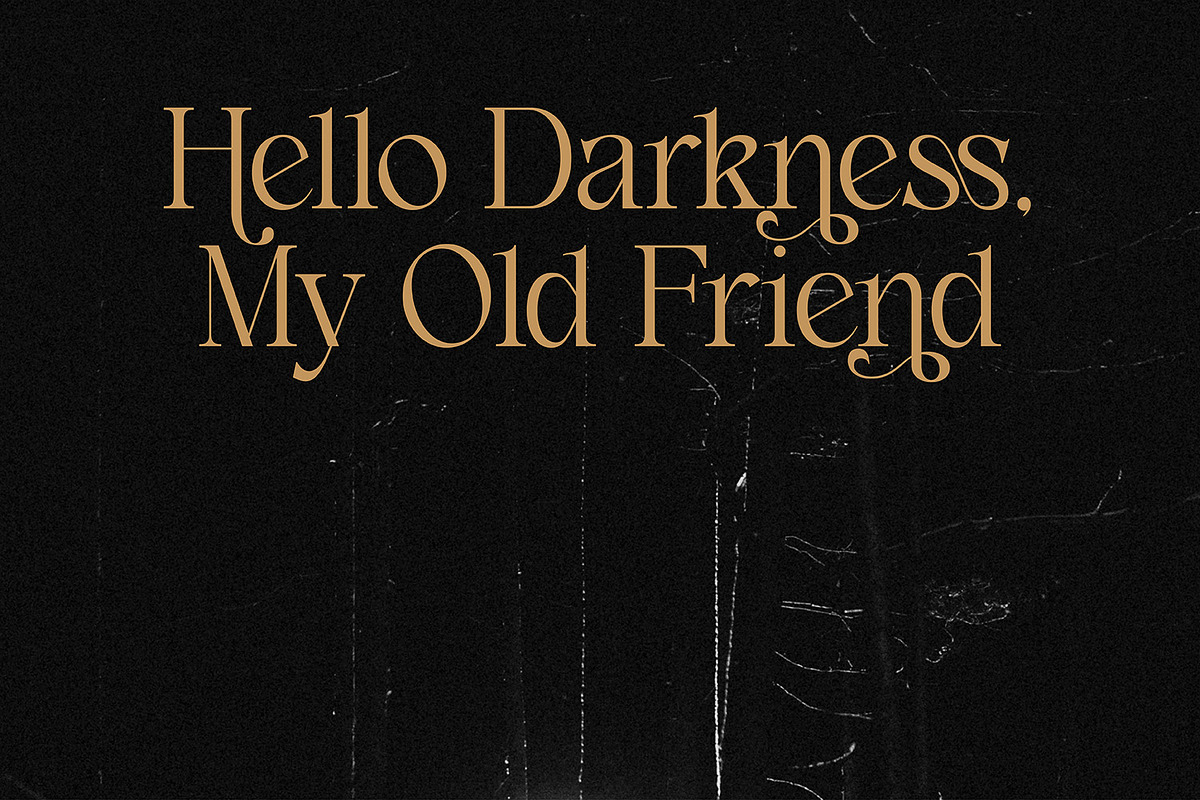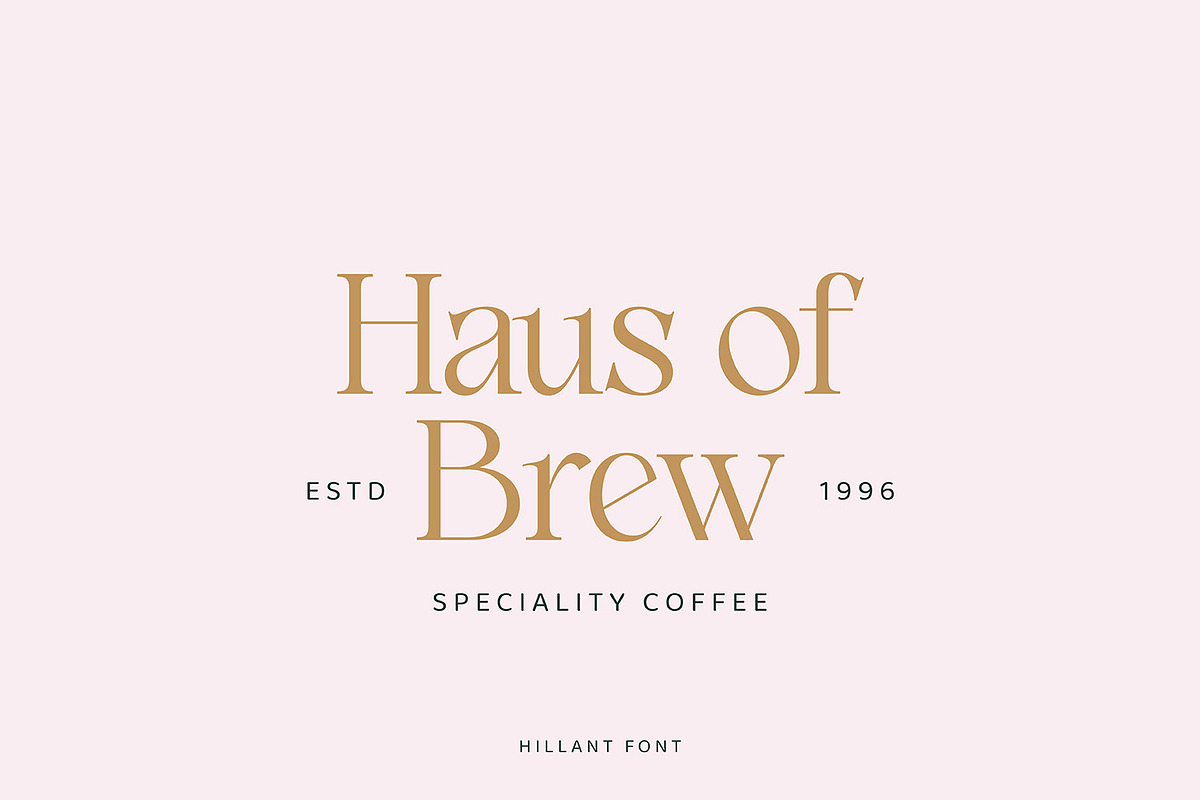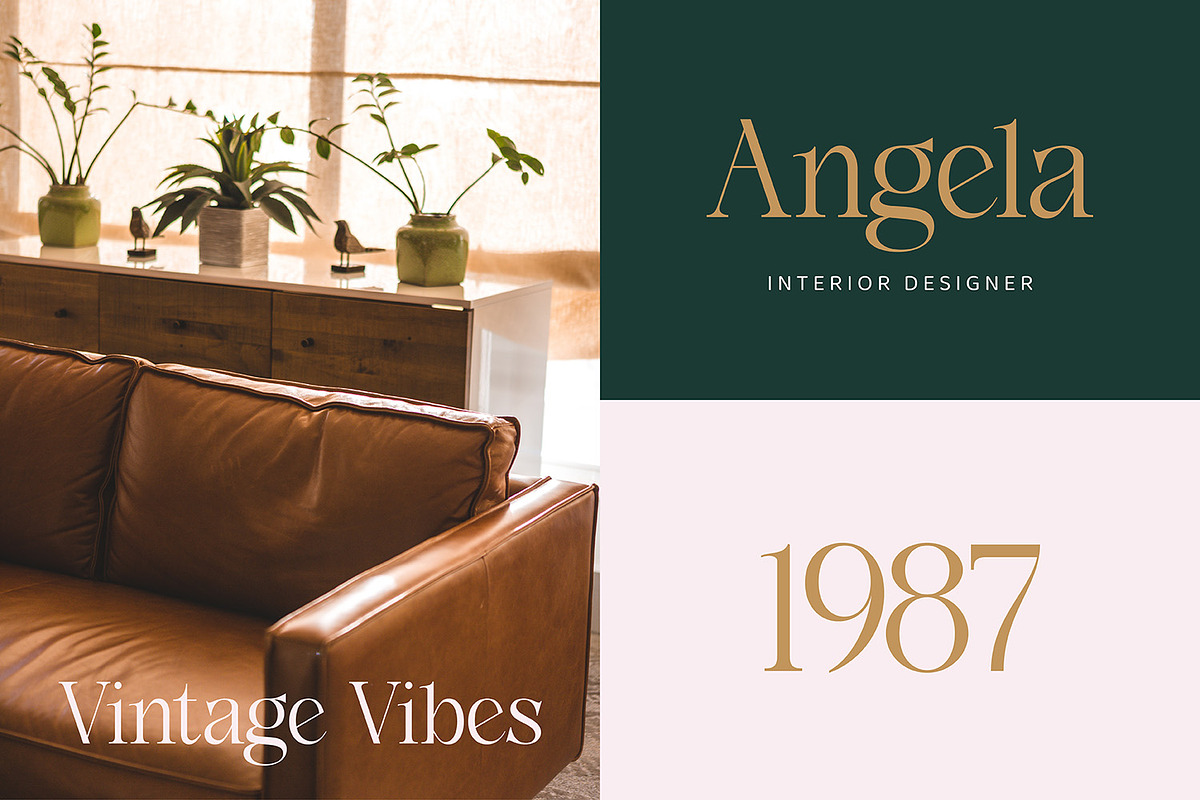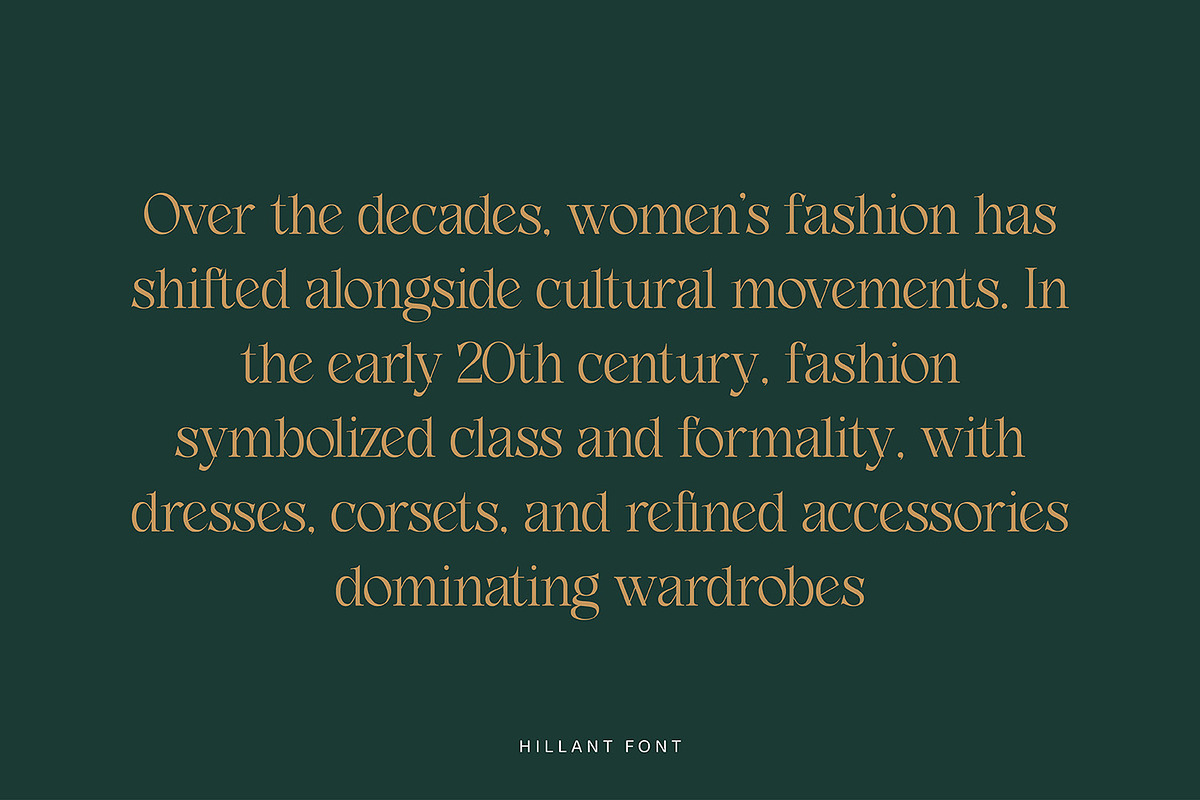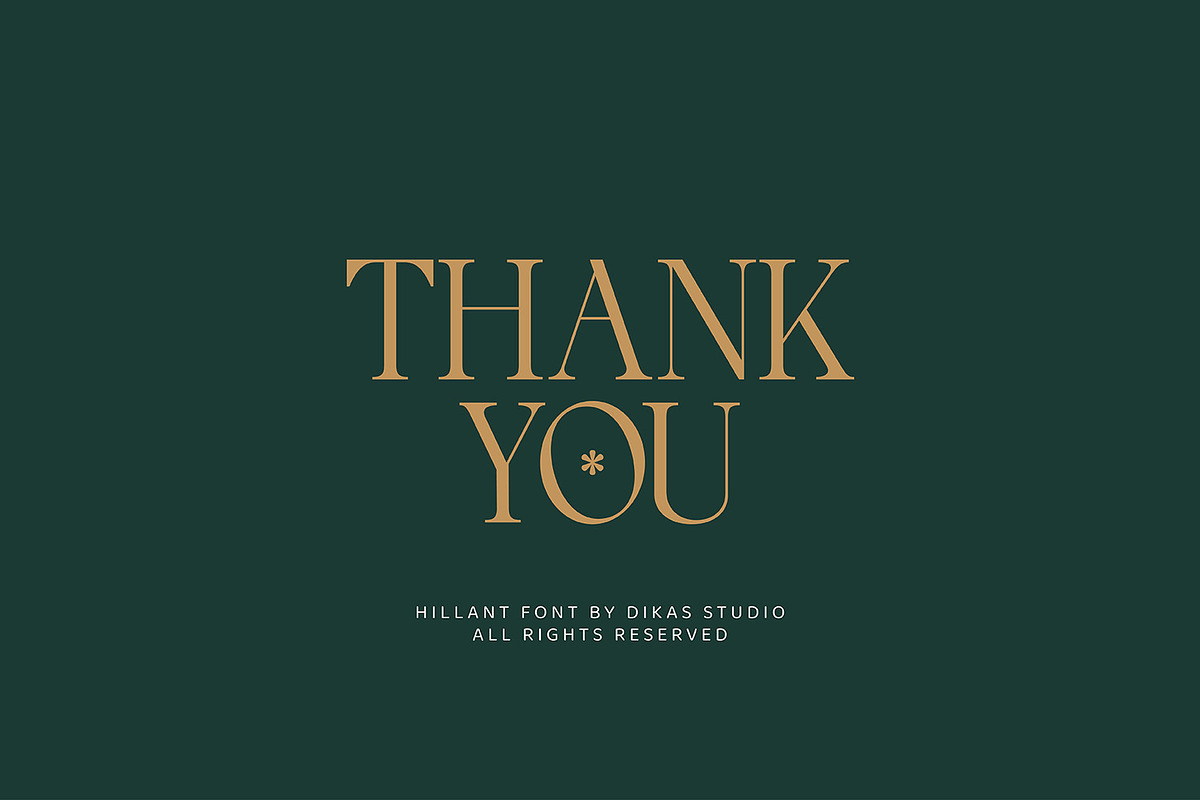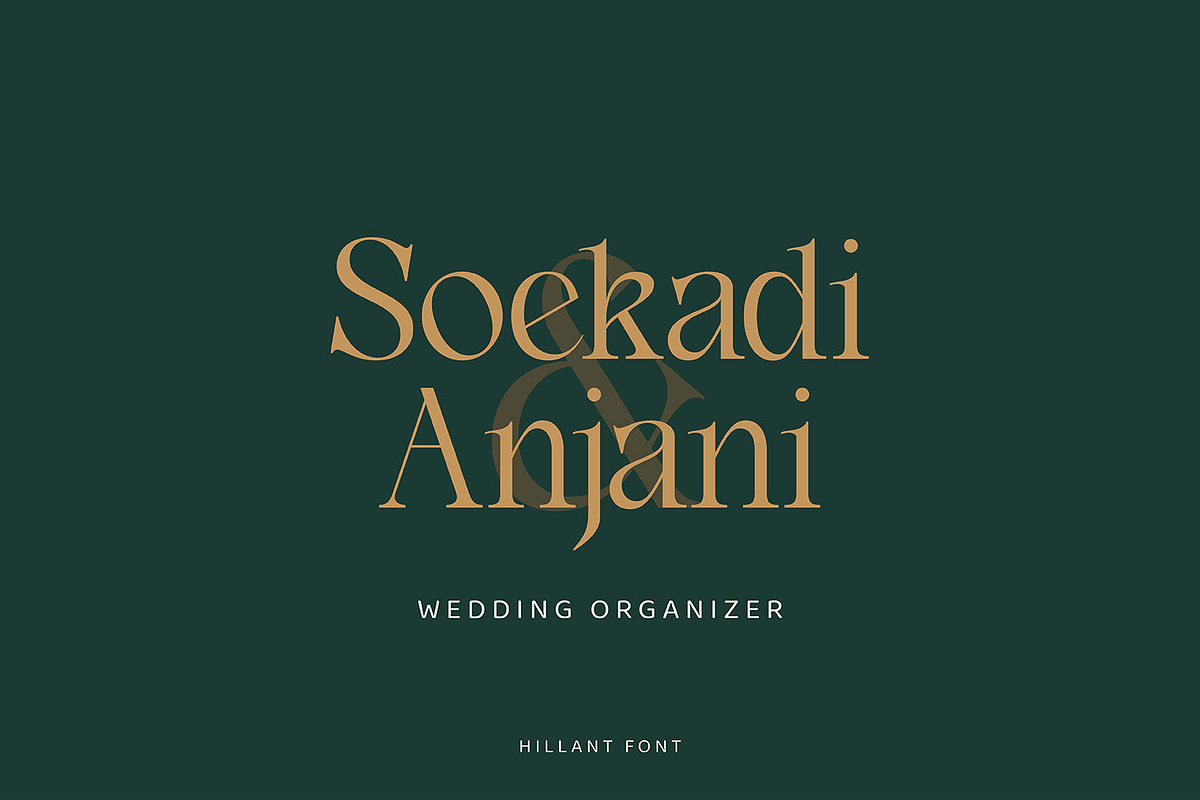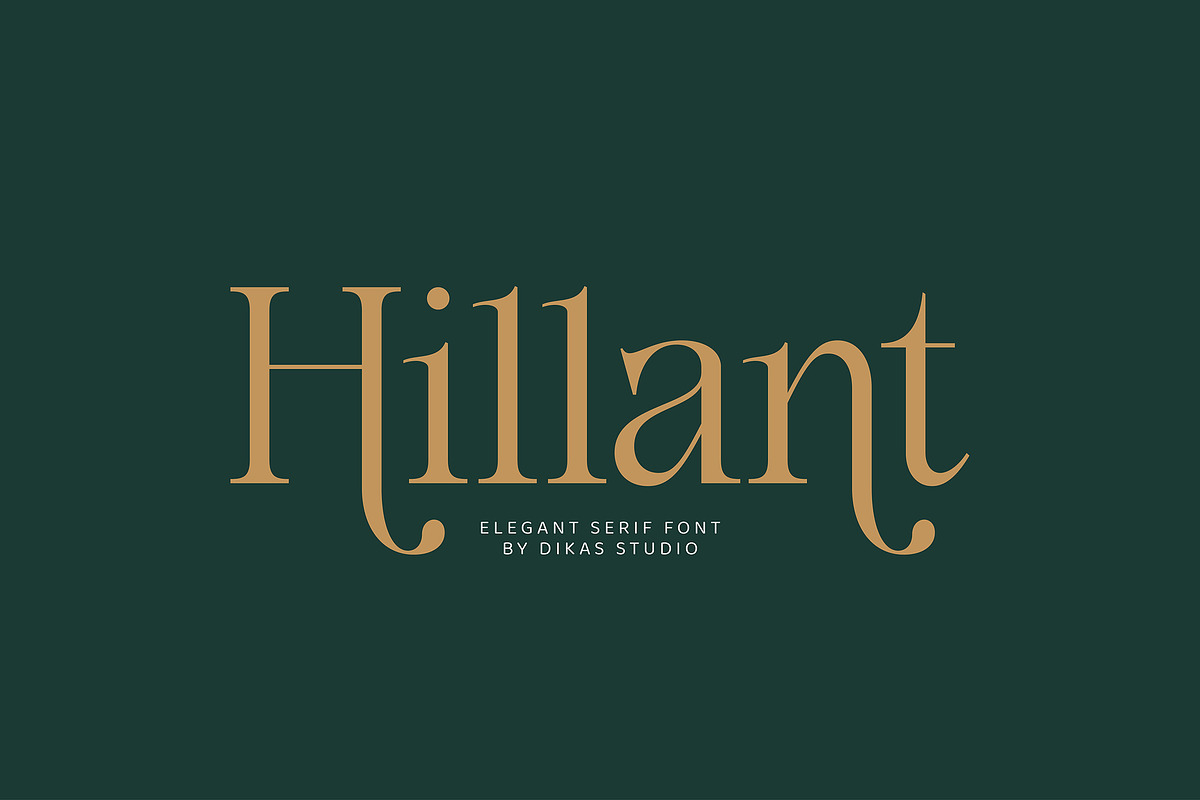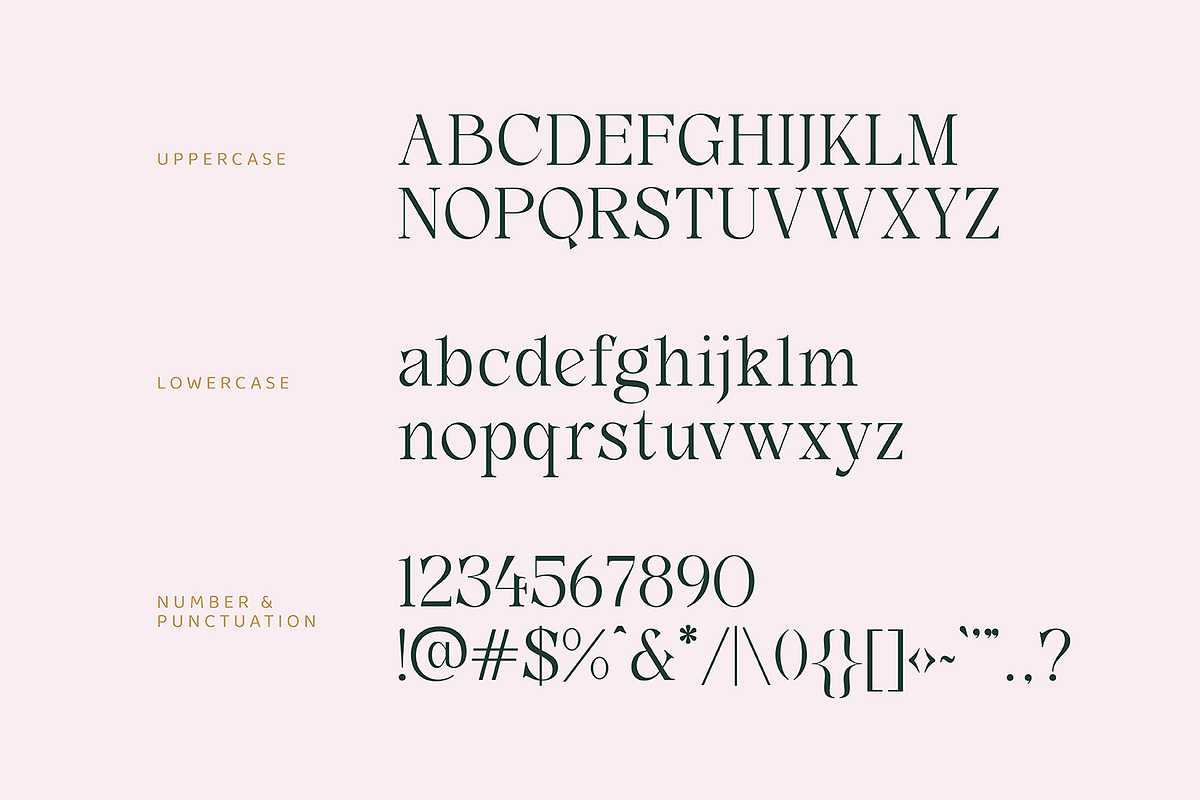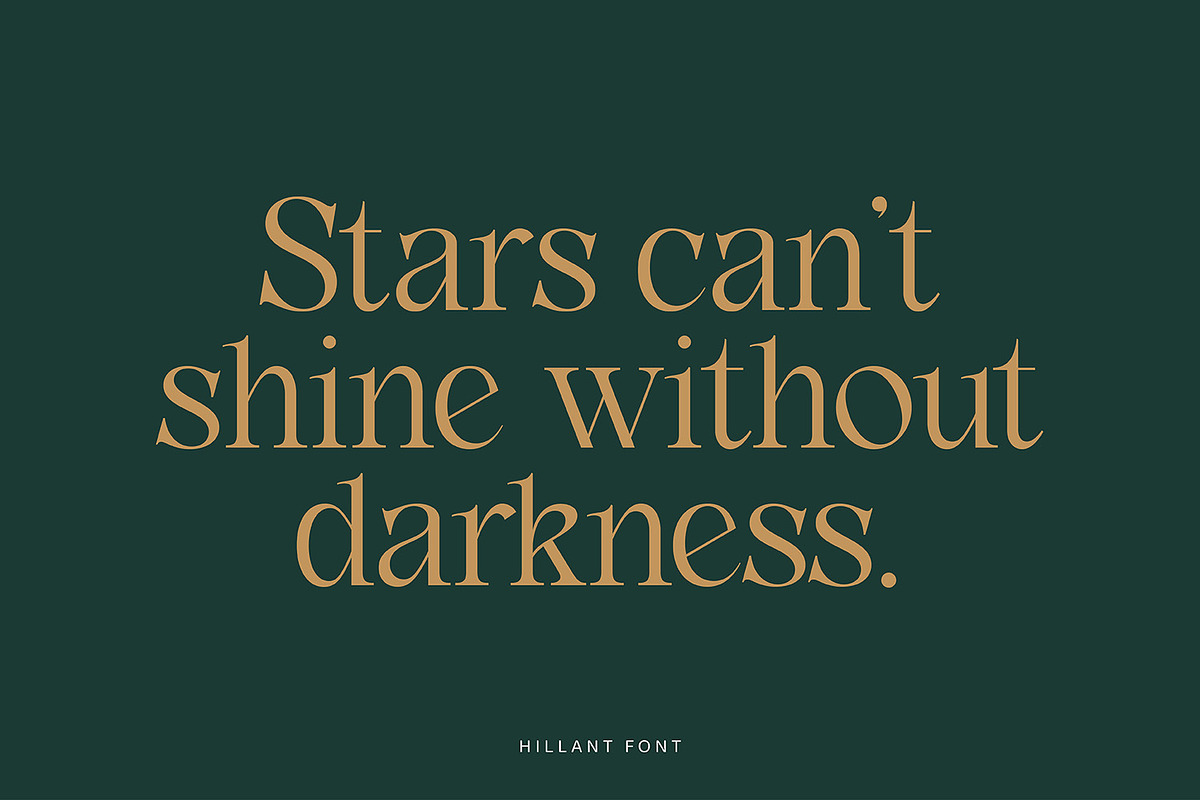
Hillant - Elegant Condensed Serif
Hillant is a condensed serif typeface with sharp serifs that combines elegance, vintage charm, and a slightly dramatic feel. Its condensed shape keeps it highly legible in large display settings, making it perfect for headlines, logos, and posters. The font includes alternate characters for added flexibility and unique design possibilities. Inspired by vintage lettering, Hillant is ideal for fashion branding, wedding invitations, and projects that demand a bold yet sophisticated serif.